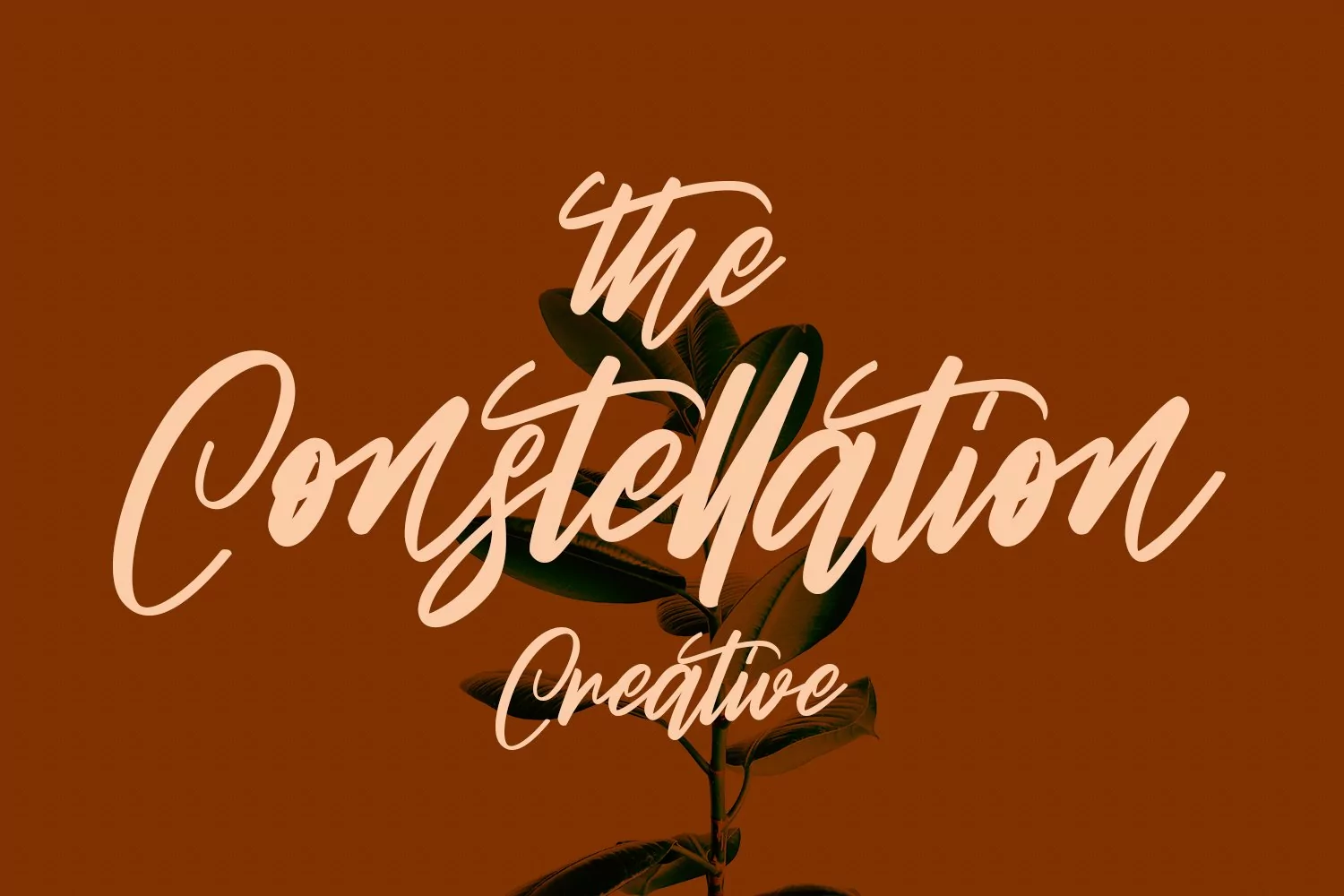
Almond Nuts is a casual signature script font. With regular contrast stroke, fun character with some of ligatures. To give you an extra creative work. Almond Nuts font support multilingual more than 100+ language. This font is good for logo design, Social media, Movie Titles, Books Titles, a short text even a long text letter and good for your secondary text font with sans or serif. Make a stunning work with Almond Nuts font.
Almond Nuts